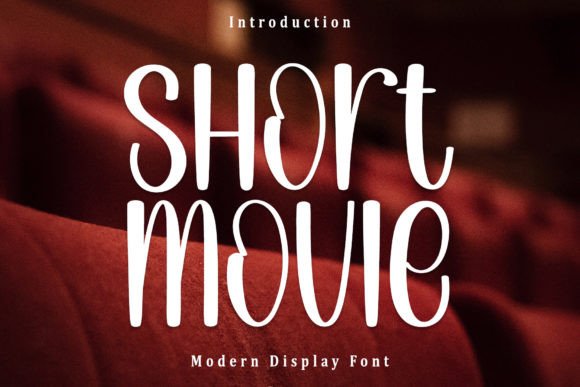
Journey into the realm of captivating expression with Short Movie Font, a script font family that exudes elegance and grace. This exquisite font is the brainchild of PiPi Creative, renowned for their artistry in crafting fonts that ignite inspiration. Embark on a creative odyssey with Short Movie, a font that effortlessly captures the essence of sophistication and timeless beauty.
Immerse yourself in the captivating allure of Short Movie's handwritten strokes, meticulously designed to evoke a sense of effortless charm. Its gentle curves and delicate flourishes add a touch of elegance to any design project, elevating your words into an enchanting visual symphony. Let Short Movie be your creative companion as you weave tales of love, friendship, and adventure, or craft designs that exude timeless allure.
Whether you're a seasoned designer or just starting your creative journey, Short Movie is the perfect font to elevate your projects to new heights. Its versatility knows no bounds, seamlessly blending with a myriad of design styles. From elegant wedding invitations to captivating social media posts, Short Movie seamlessly adapts to your creative vision, adding a touch of sophistication and charm to every endeavor.
Indulge in the endless possibilities that Short Movie presents. Create eye-catching logos that leave a lasting impression, design stunning flyers that demand attention, or craft heartfelt greeting cards that convey your sincerest emotions. With Short Movie, the creative possibilities are limitless.